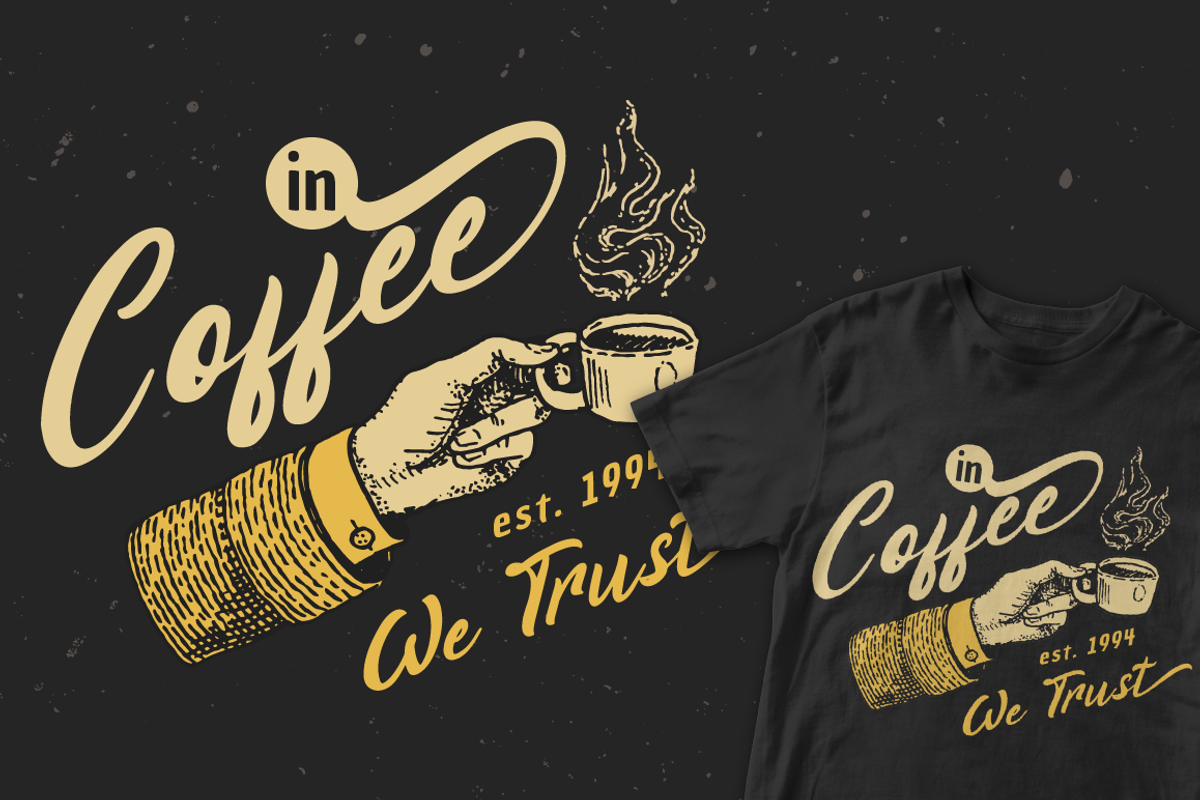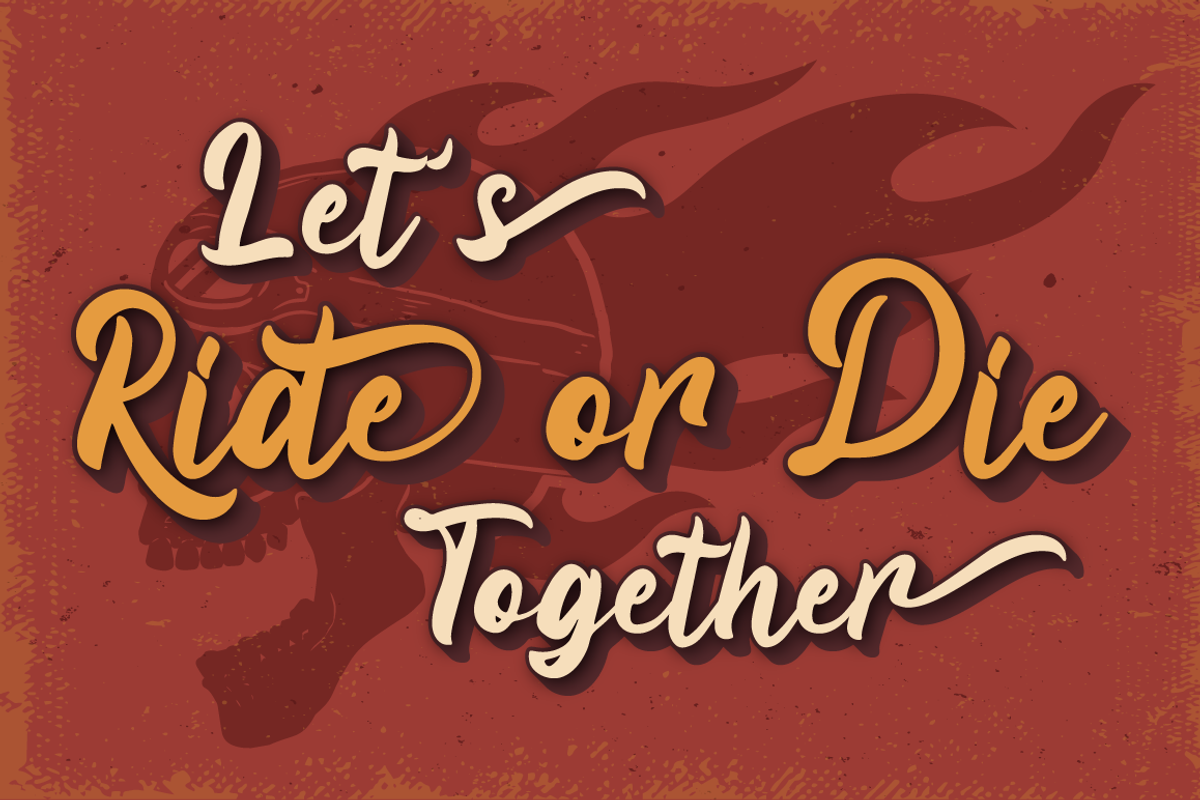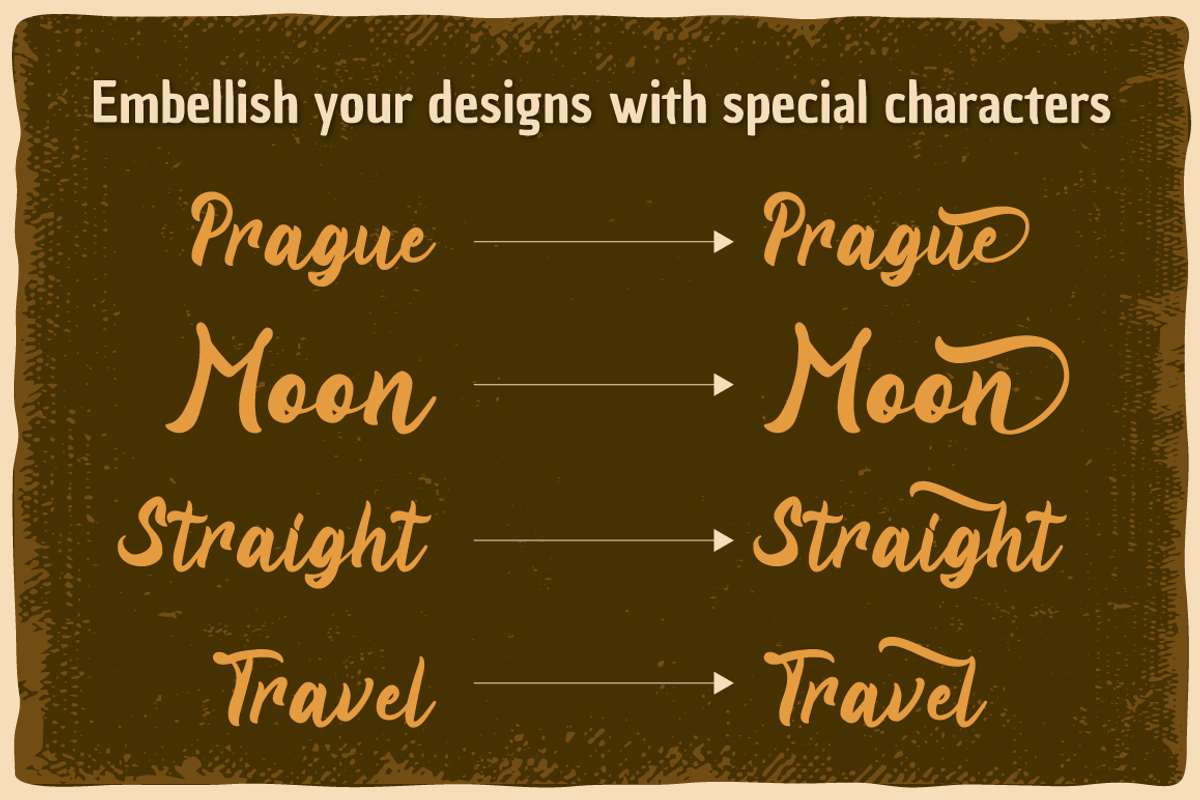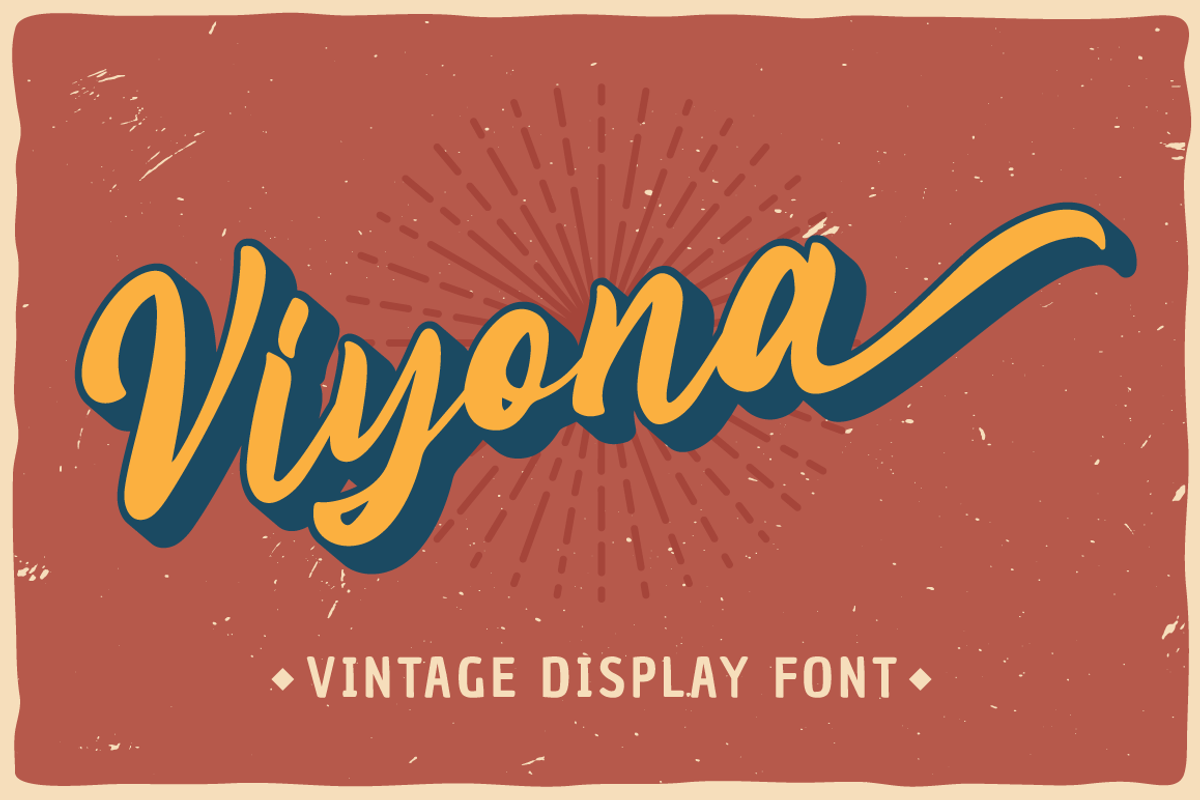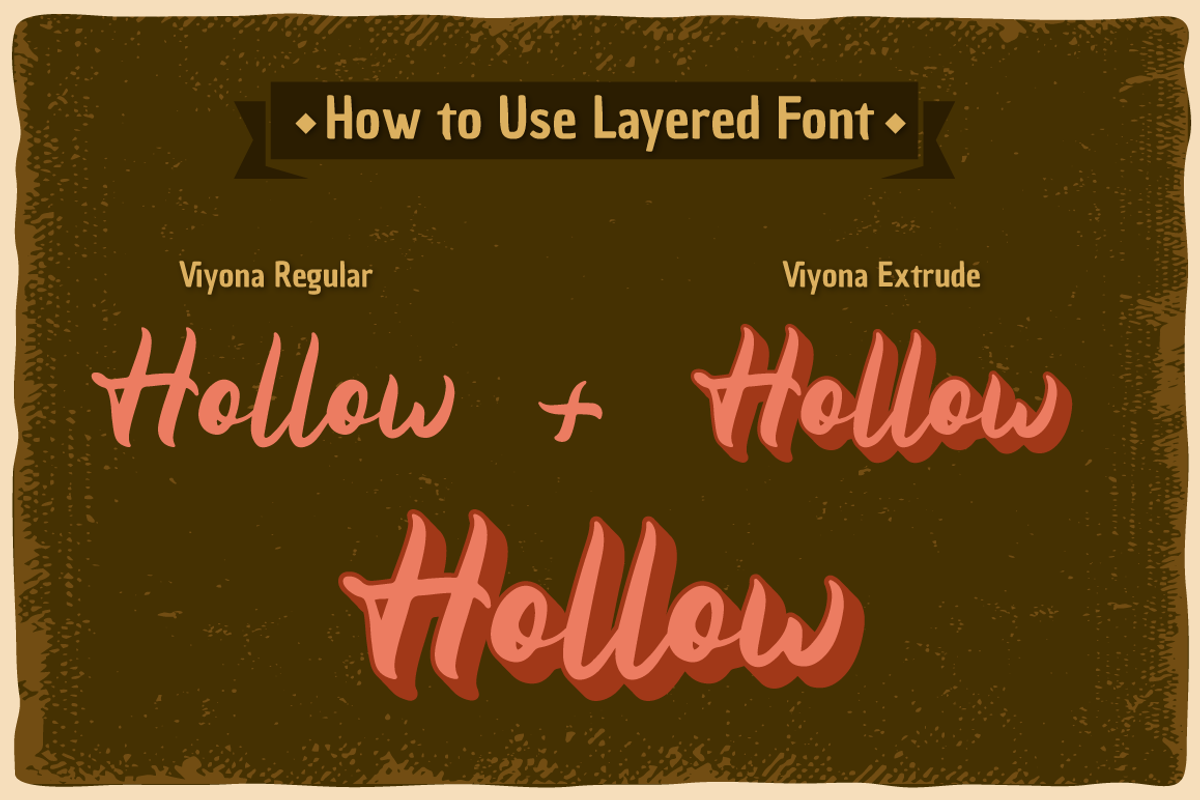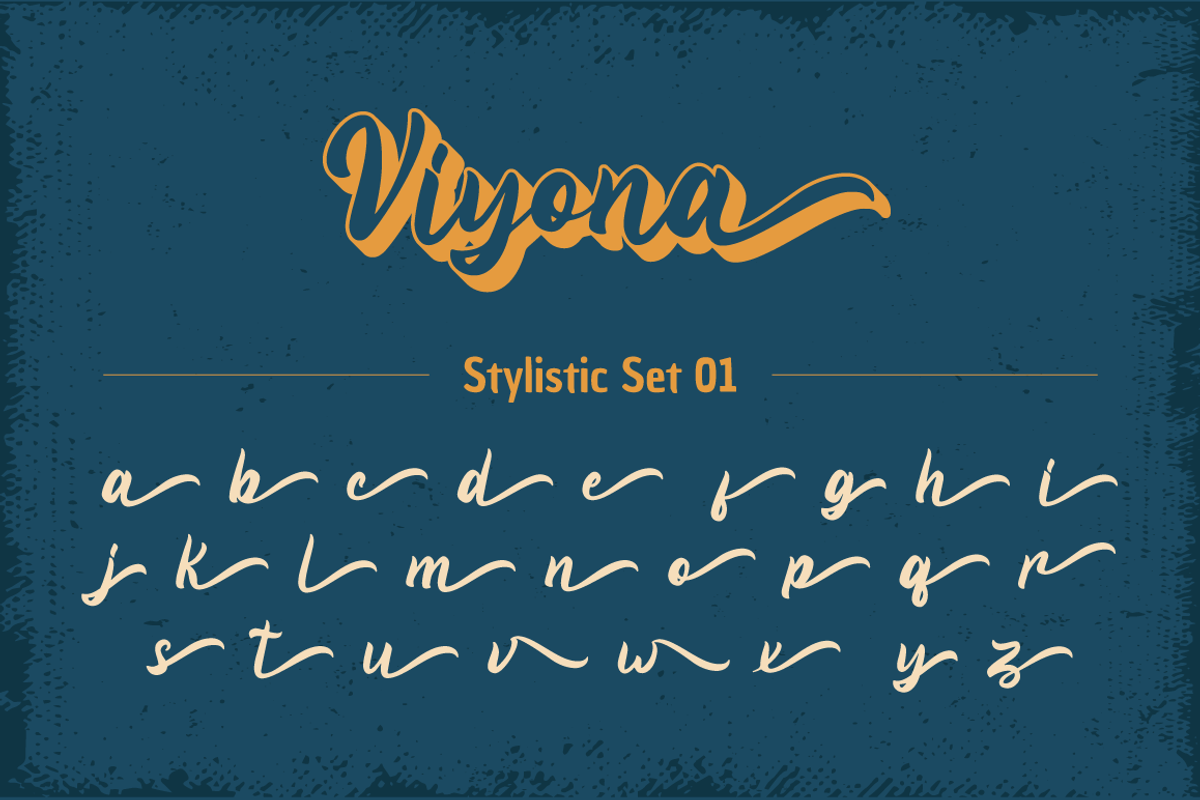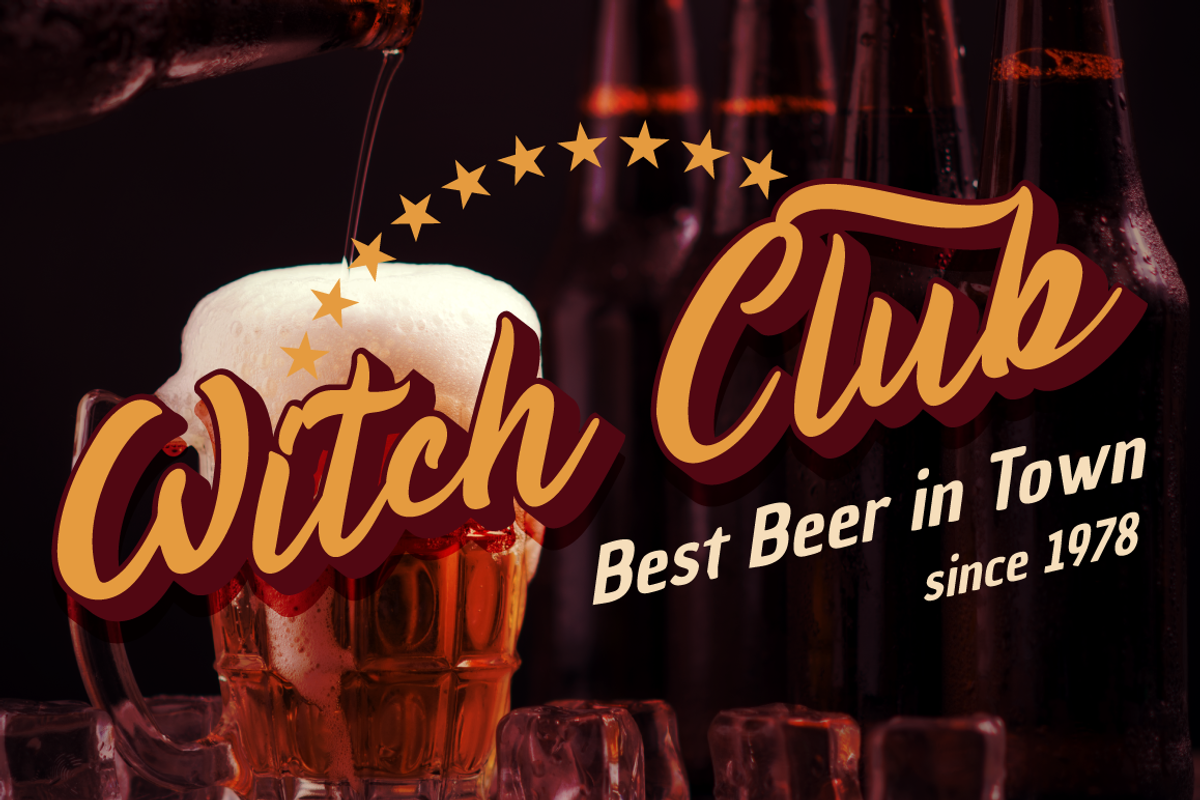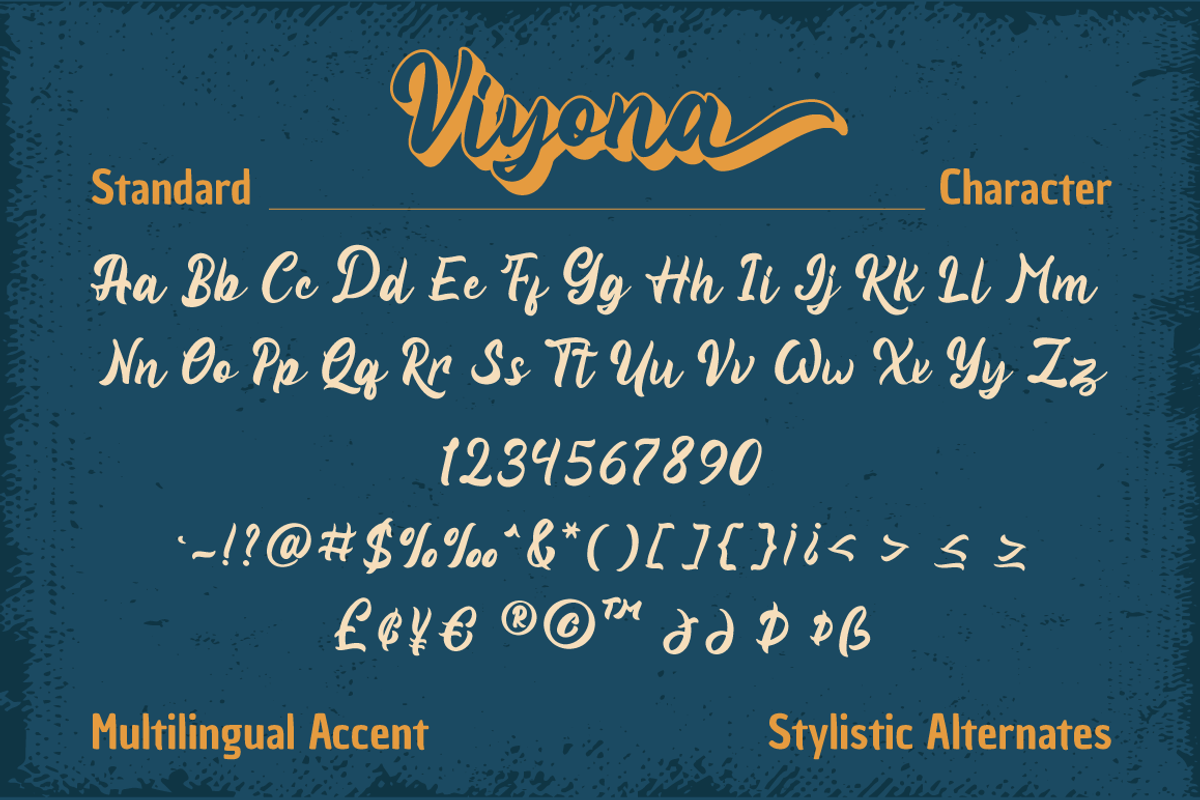
Viyona - Vintage Display Font
Viyona is a Script Vintage font with stylistic set and alternates. Combine with Viyona - Extrude to get 3D character style! Fall in love with its incredibly versatile style and use it to create spectacular designs!
Viyona is perfect for branding, logo, invitation, quotes, apparel design, product packaging, merchandise, game titles, cute style design, Book/Cover Title and more.
- Ending Swash